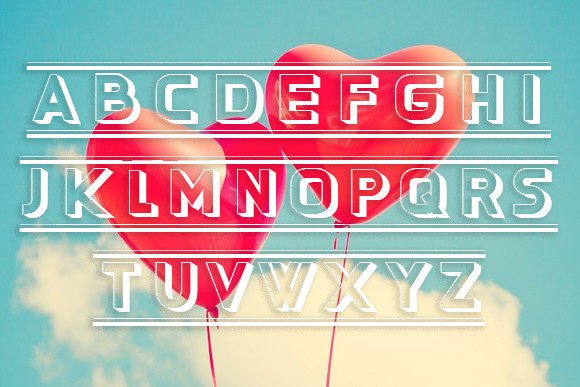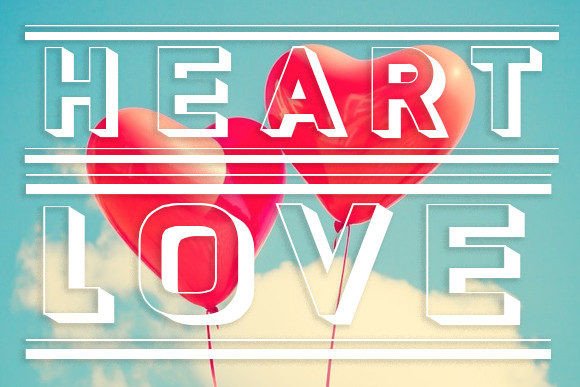
Introducing Amor Font: The Ultimate 3D Display Font for Design Inspiration
Are you tired of using the same old fonts for your designs? Look no further! Amor Font is here to revolutionize your creative projects with its stunning 3D display capabilities. This awesome font is perfect for designers and crafters seeking inspiration for their next big project. Whether you’re working on postcards, flyers, magazines, or any other design material, Amor Font is sure to catch everyone’s heart and attention!
Amor Font is specifically designed to help designers and crafters create visually appealing and engaging content. Its unique 3D display features make it an excellent choice for a wide range of projects, from advertising materials to editorial content. With Amor Font, you can add a touch of elegance and sophistication to your designs, setting them apart from the rest.
Key Features of Amor Font
- Stunning 3D Display: Amor Font boasts an impressive 3D display that adds depth and dimension to your designs.
- Highly Versatile: Use Amor Font on various design materials, including postcards, flyers, magazines, brochures, and more.
- Attention-Grabbing: Amor Font is designed to capture attention and leave a lasting impression on your audience.
- Postcards: Create eye-catching postcards for special occasions, events, or promotions.
- Flyers: Design attention-grabbing flyers for concerts, festivals, or sales events.
- Magazines: Use Amor Font as a header or title font in your magazine layouts to add visual interest.
- Social Media Graphics: Create stunning social media graphics that showcase your brand’s personality.
Tips for Getting the Most Out of Amor Font
To maximize the impact of Amor Font, consider the following tips:
- Experiment with Colors: Try pairing Amor Font with different colors to create unique and eye-catching combinations.
- Play with Textures: Add texture to your designs by combining Amor Font with various textures and patterns.
- Keep it Simple: Don’t overcomplicate your design. Amor Font is designed to be the focal point, so keep your design clean and simple.
Amor Font is an incredible 3D display font that can elevate your designs to the next level. With its stunning visuals, versatility, and ease of use, it’s perfect for designers and crafters seeking inspiration for their next project. Whether you’re working on postcards, flyers, magazines, or any other design material, Amor Font is sure to capture everyone’s heart and attention. So why wait? Download Amor Font today and start creating amazing designs that leave a lasting impression!